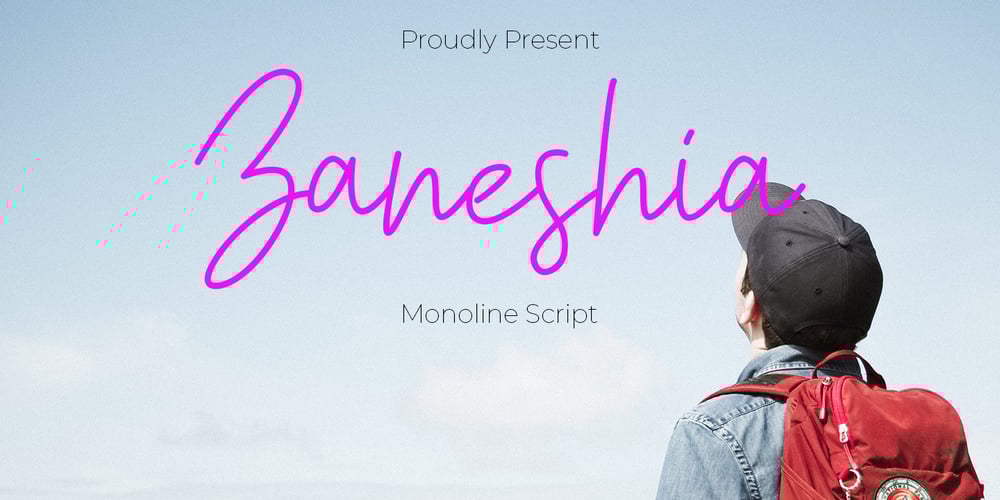
Zaneshia Font Family was designed by Mohamad Candirah and published by MC Creative. Zaneshia contains 1 styles and family package options. Zaneshia is monoline script font which natural movement and cute style.is perfect for branding projects, logo, wedding designs, social media posts, advertisements, product packaging, product designs, label, photography, watermark, invitation, stationery and any projects that need handwriting taste. What’s Included : Standard glyphs Ligature Works on PC & Mac Accessible in the Adobe Illustrator, Adobe Photoshop, Adobe InDesign, even work on Microsoft Word. PUA Encoded Characters – Fully accessible without additional design software. Fonts include multilingual support for; ä ö ü Ä Ö Ü ß ¿ ¡ for questions and usage license please contact us Mohamadcandirah@gmail.com